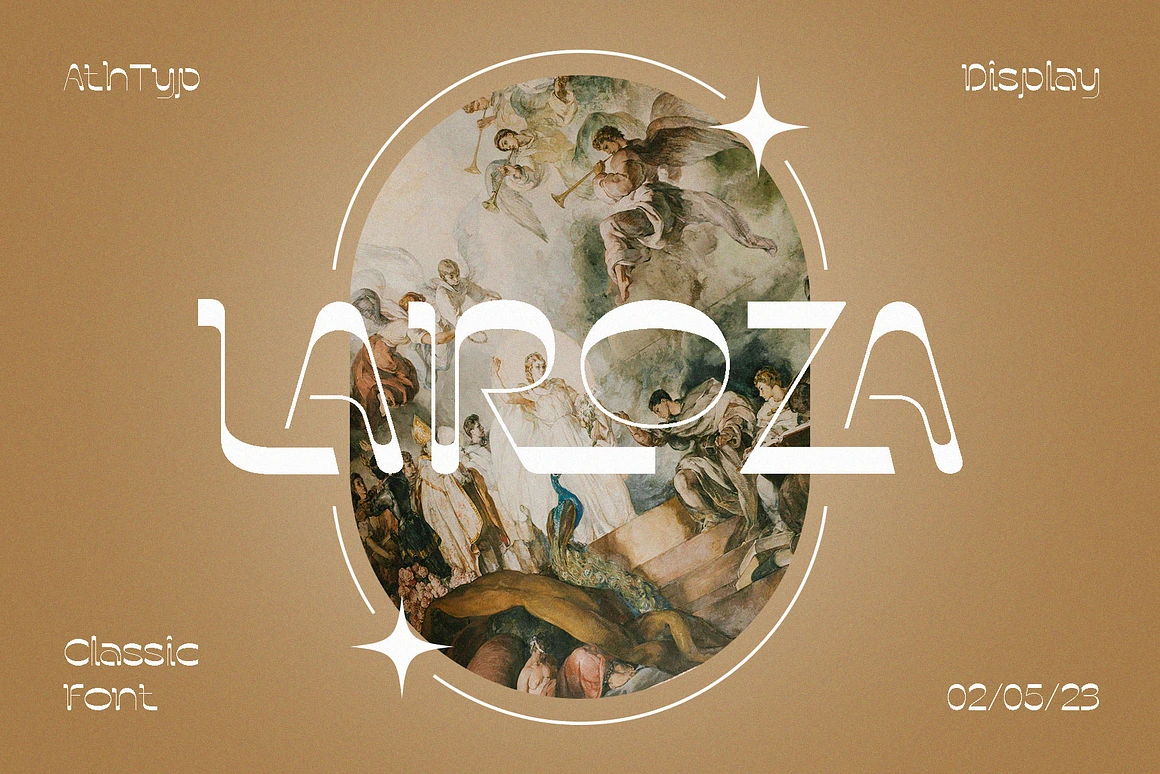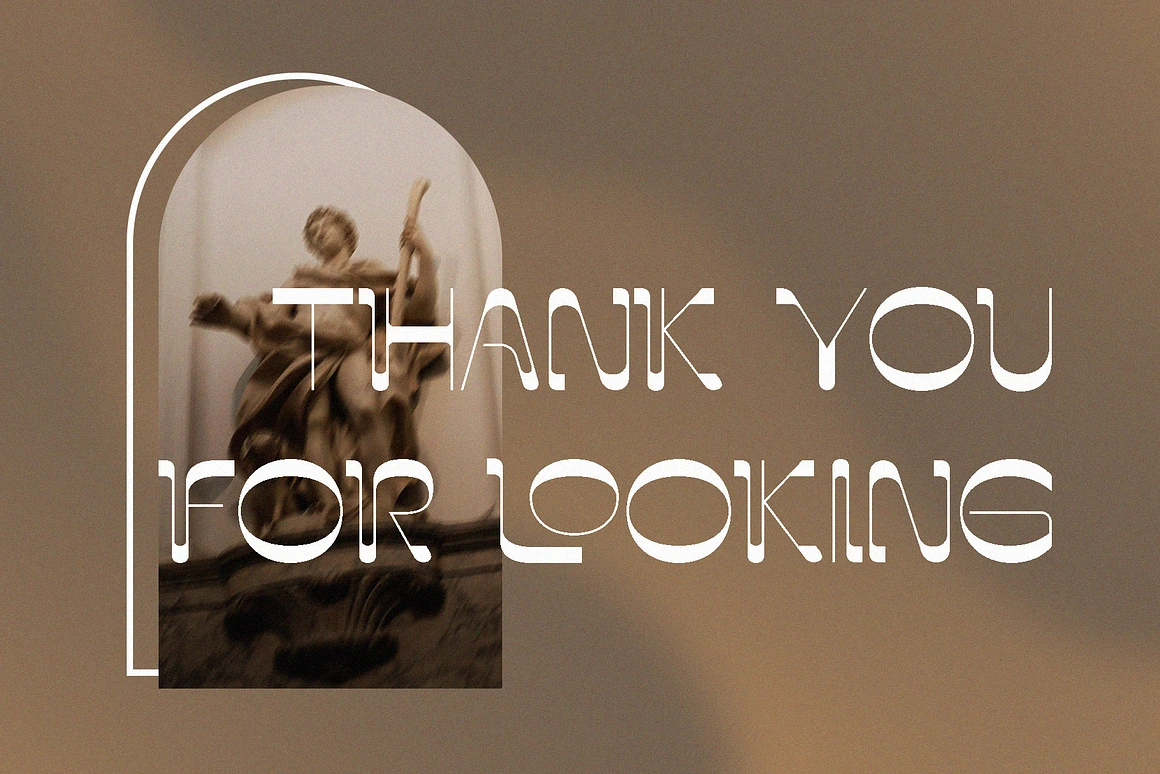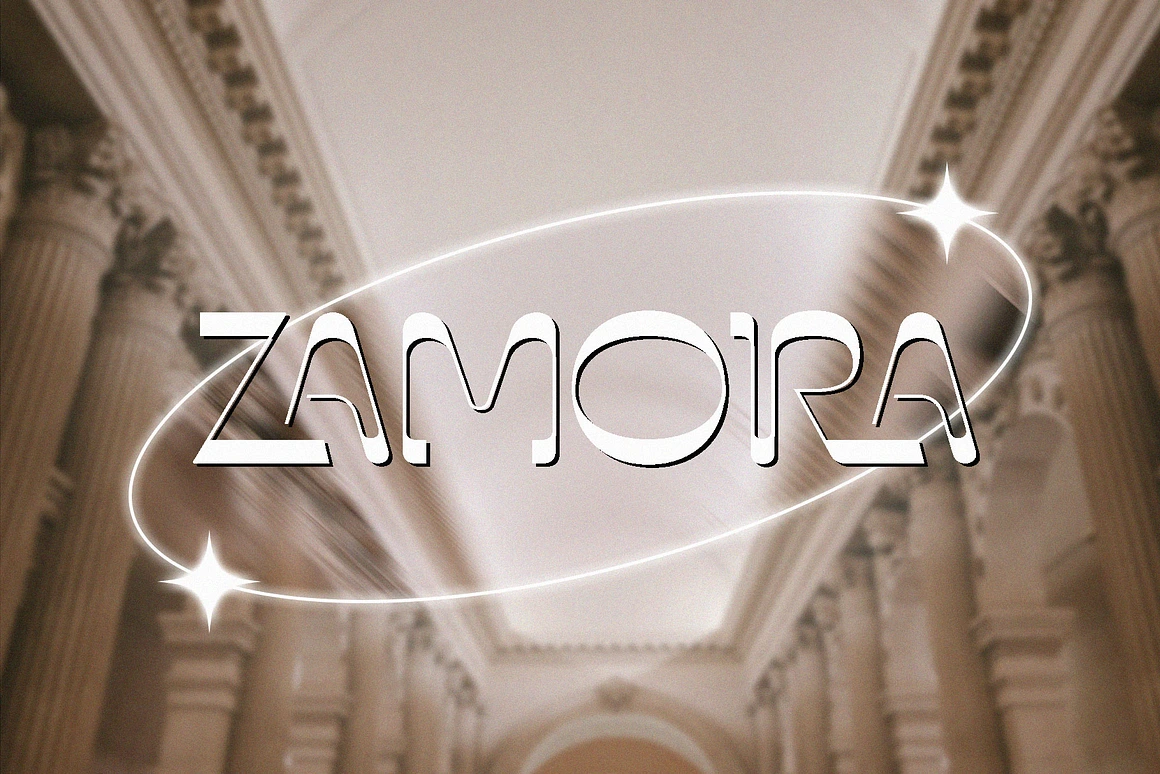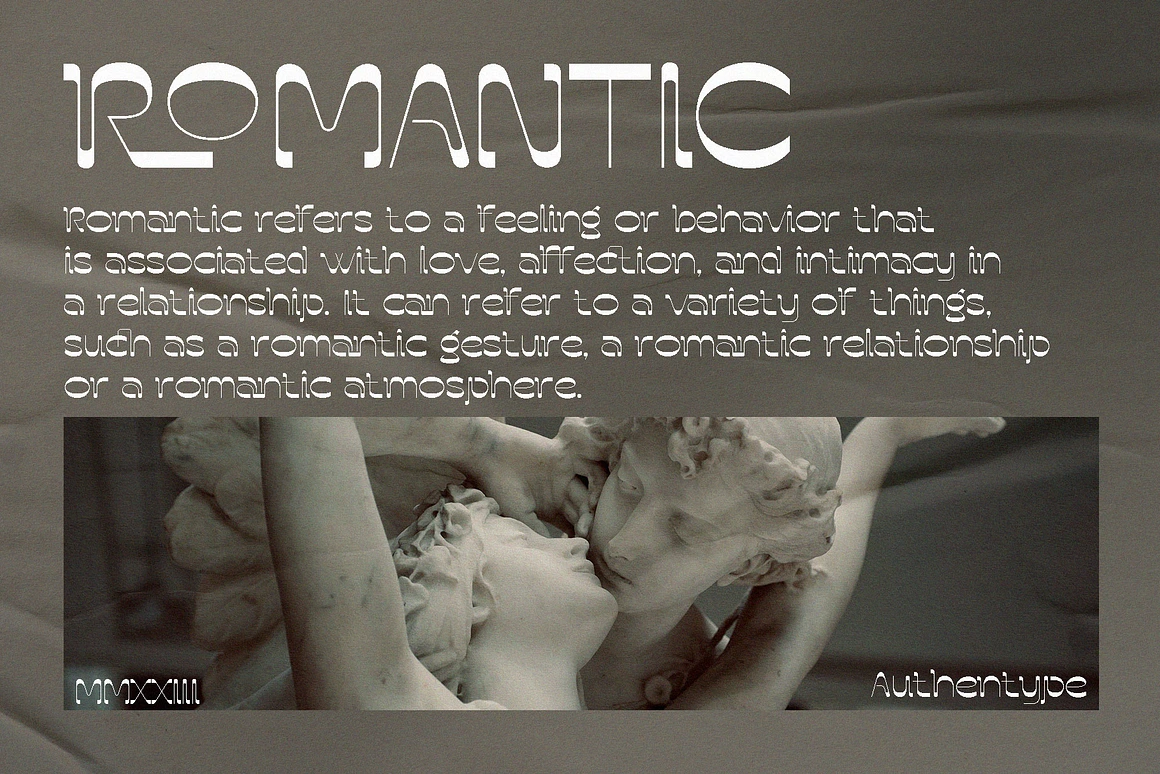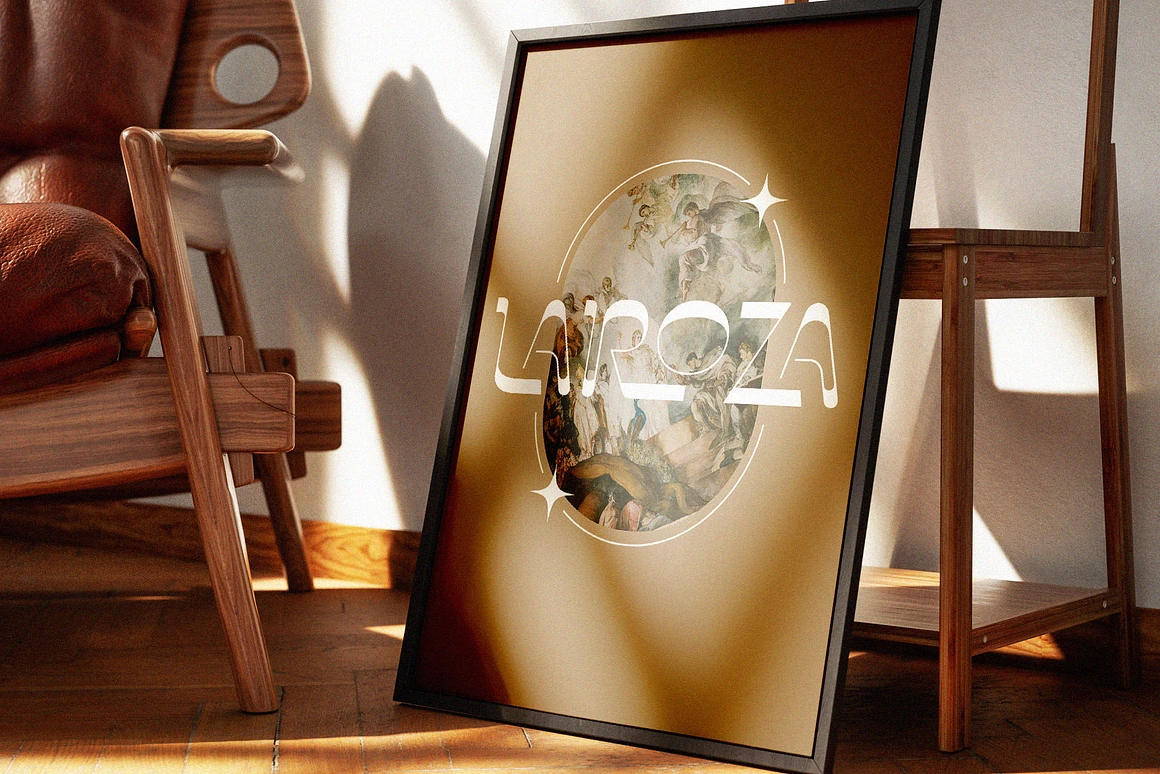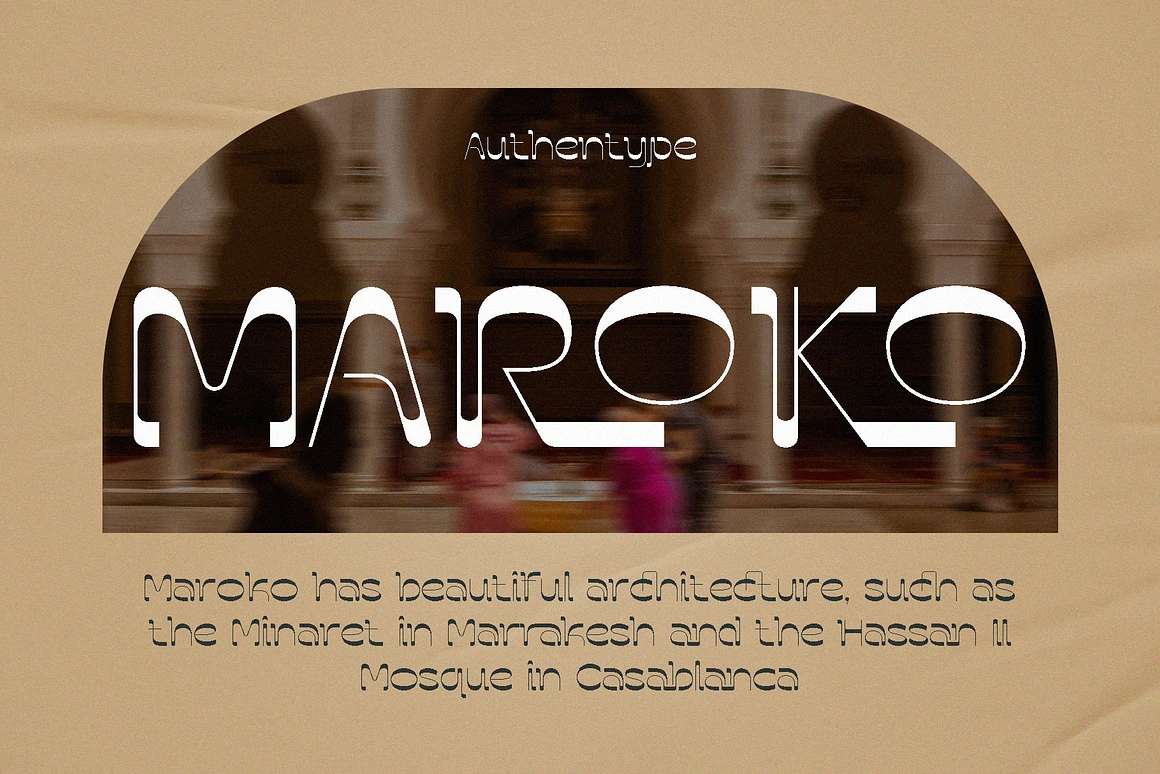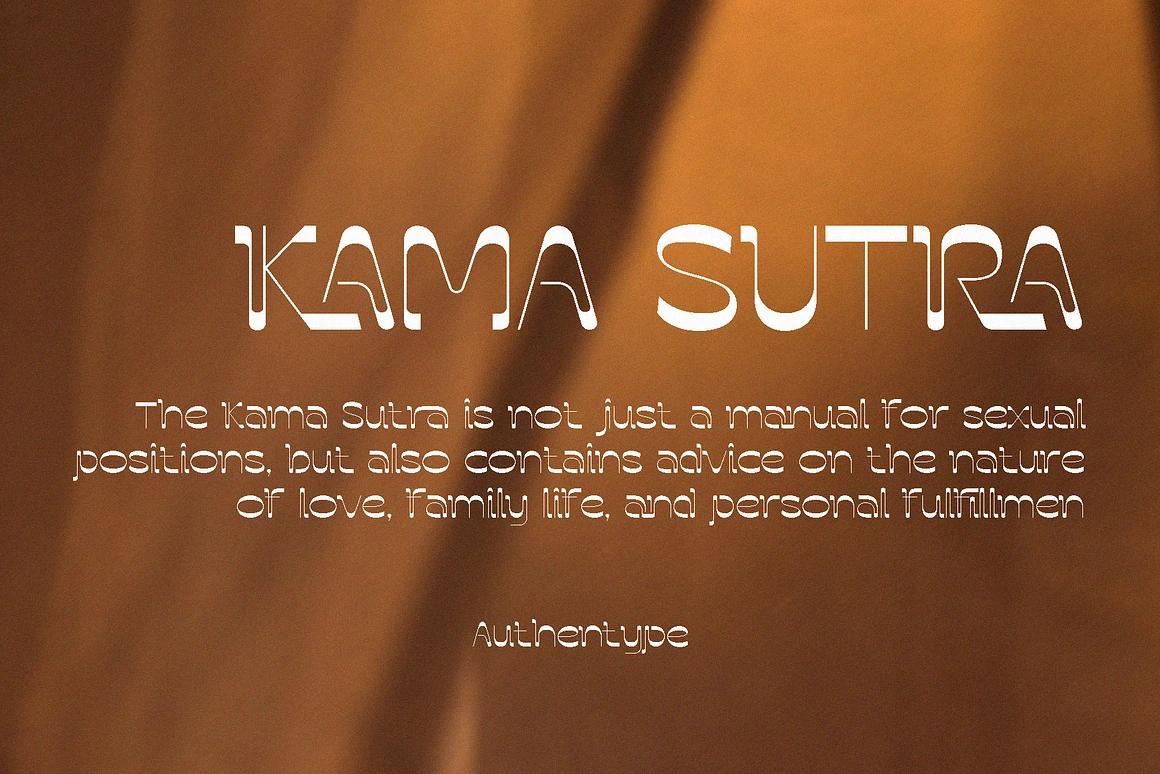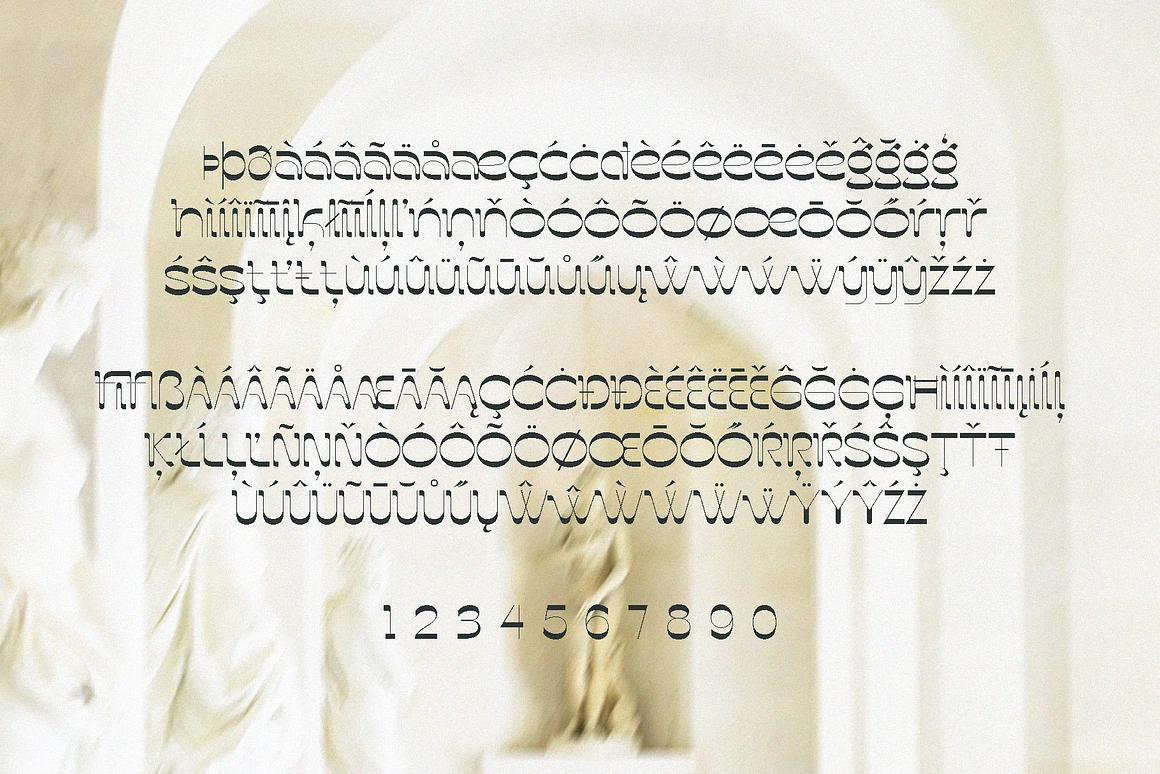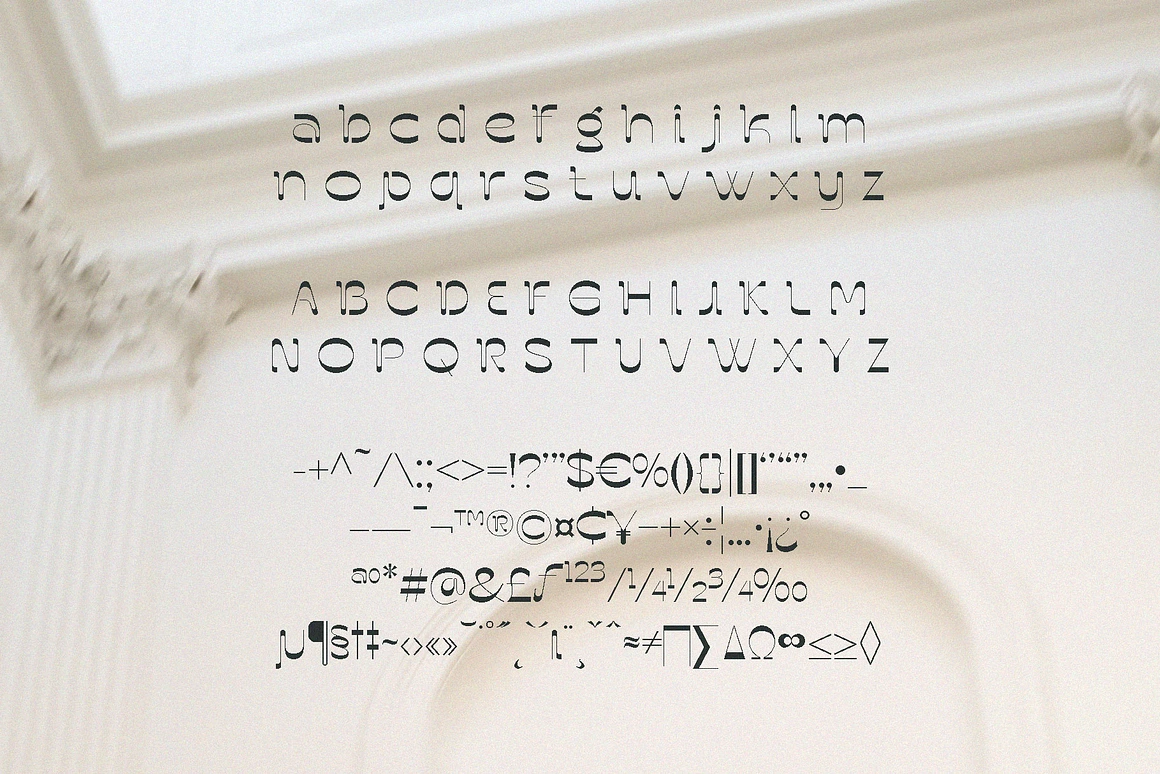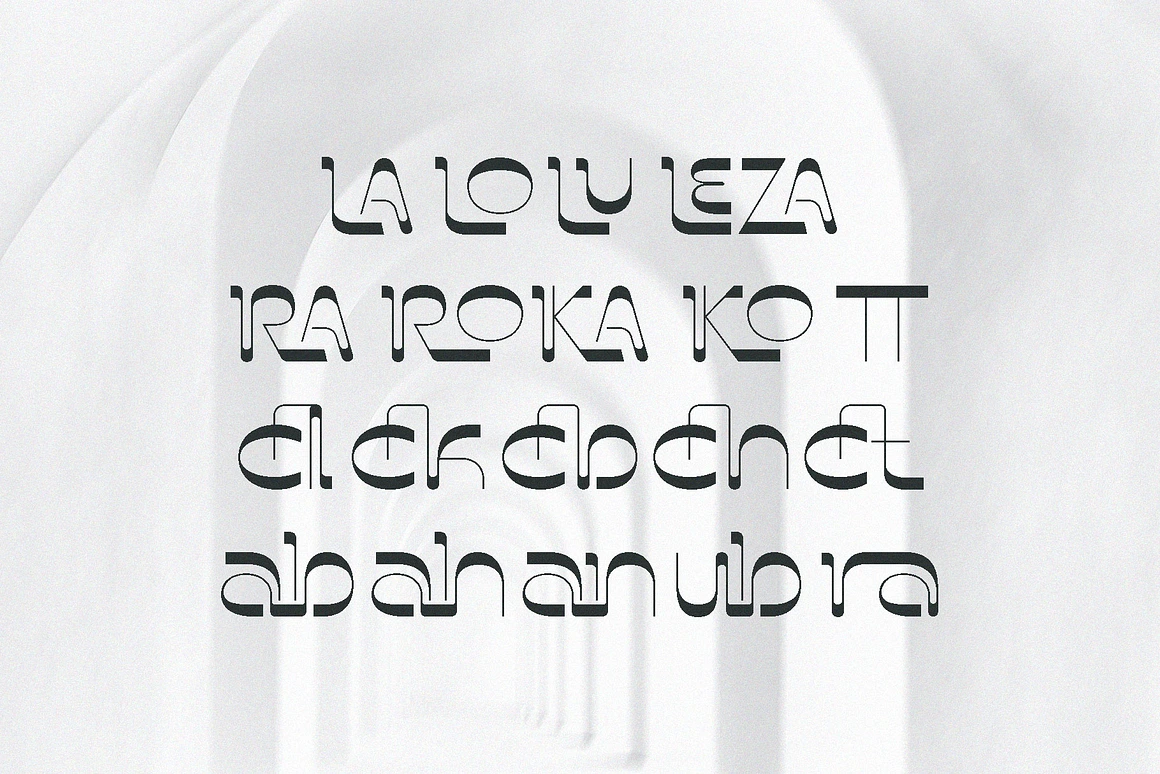
Laroza - Classic Display Font
Laroza
Laroza Classic Display Font is a product that combines classic with a modern touch, capturing the attention of designers and typographers alike. Created with meticulous attention to detail, Laroza classic display font features a distinctive and sophisticated typeface that exudes luxury and sets it apart from other fonts. The versatility of Laroza Classic Display Font makes it ideal for enhancing any project, from branding and marketing materials to web and print media design. Its adaptability and flexibility make it a go-to choice for businesses looking to elevate their brand image and establish a strong visual identity.
With its beautiful curved letterforms, Laroza Classic Display Font adds a unique and distinct character to every design project. Its beauty and unrivaled quality make it an invaluable asset for designers who strive to create extraordinary, high-quality pieces. Whether you’re designing a logo, website, or any other branding materials, Laroza Classic Display Font is the perfect choice to help you achieve your vision. With its classic elegance and modern sensibility, this font is sure to make a timeless impression on anyone who sees it.